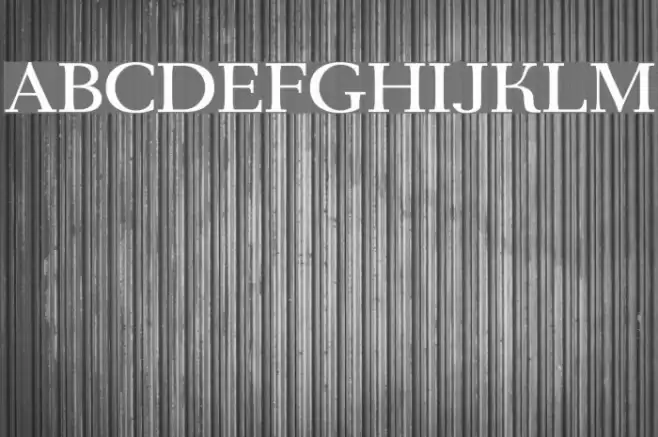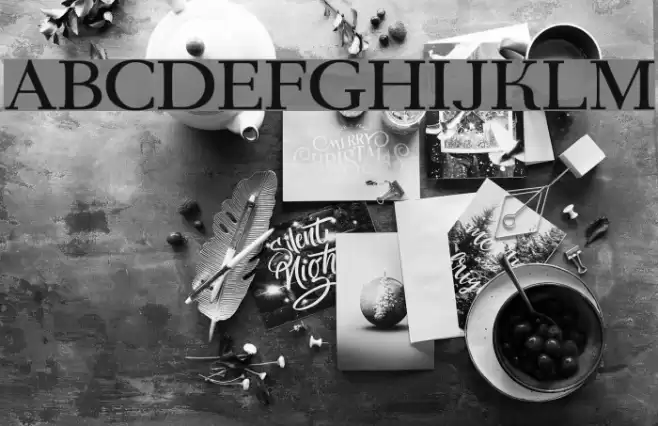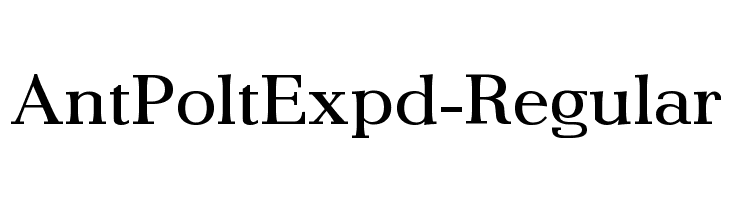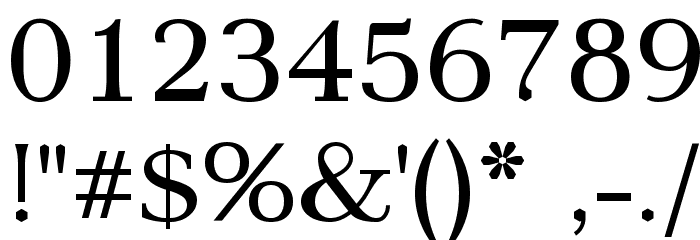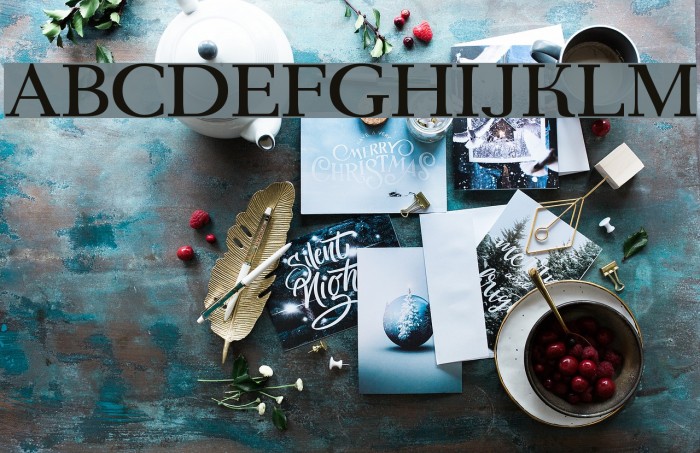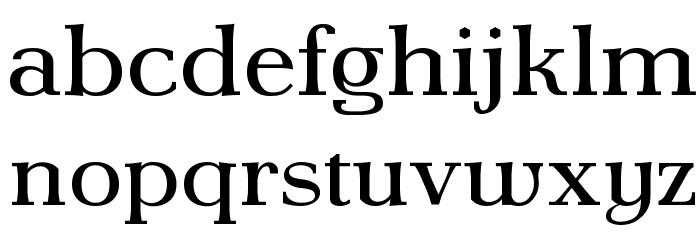
AntPoltExpd-Regular Font
AntPoltExpd-Regular Description
This font exhibits a classic serif style with elegant and slightly elongated letterforms. The serifs are pronounced, providing a traditional and formal appearance. The uppercase letters are bold and commanding, while the lowercase letters maintain a balanced and readable form. The numerals are clear and distinct, ensuring legibility. Special characters are well-integrated, maintaining the overall aesthetic. This font is suitable for conveying a sense of sophistication and authority.
A classic serif font with elegant, elongated letterforms and pronounced serifs from Uncategorized fonts.
- Proposed Projects: Ideal for use in formal documents, book titles, editorial design, and branding that requires a touch of elegance.
- Width: Expanded
- Overall Style: Classic